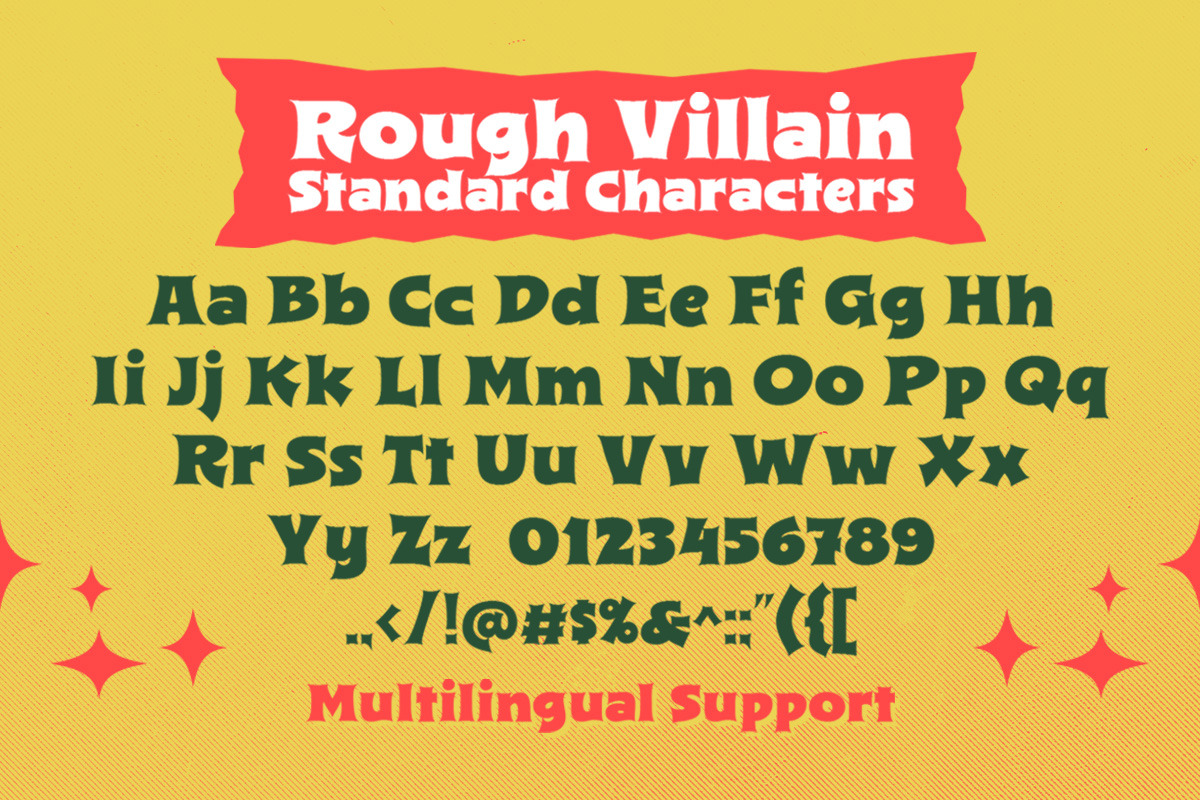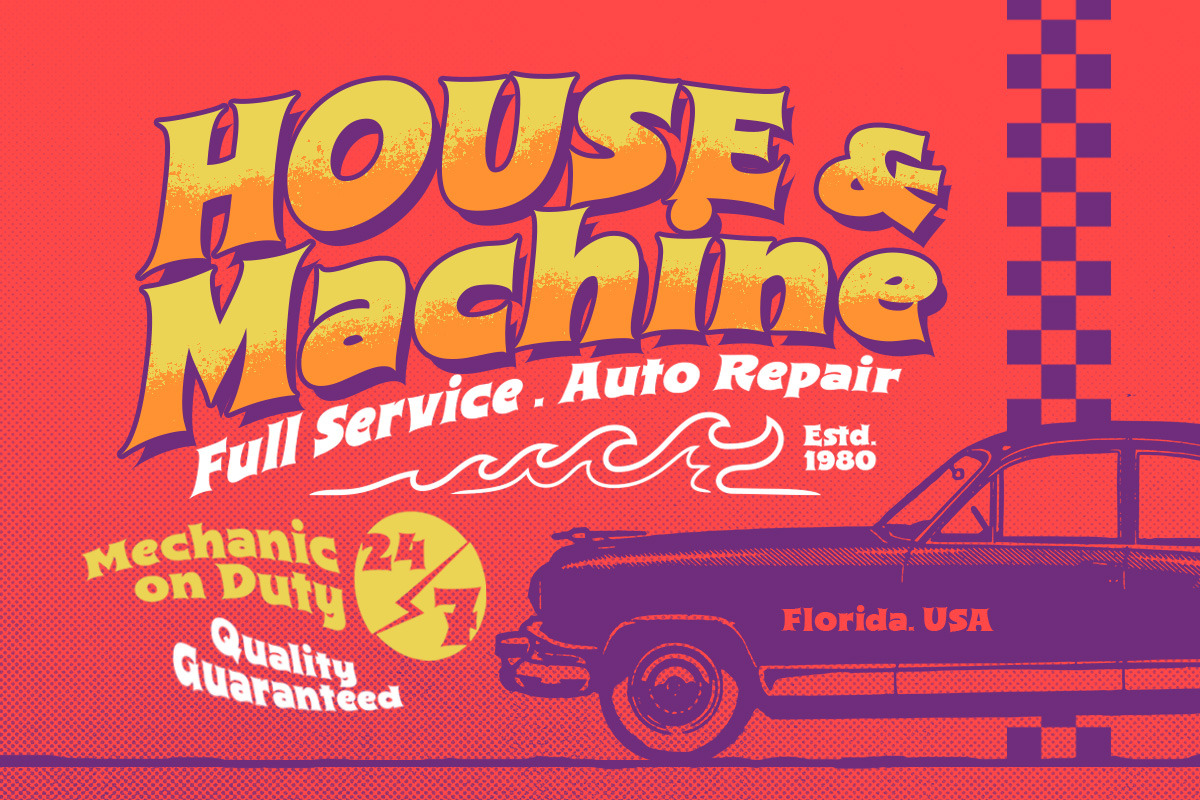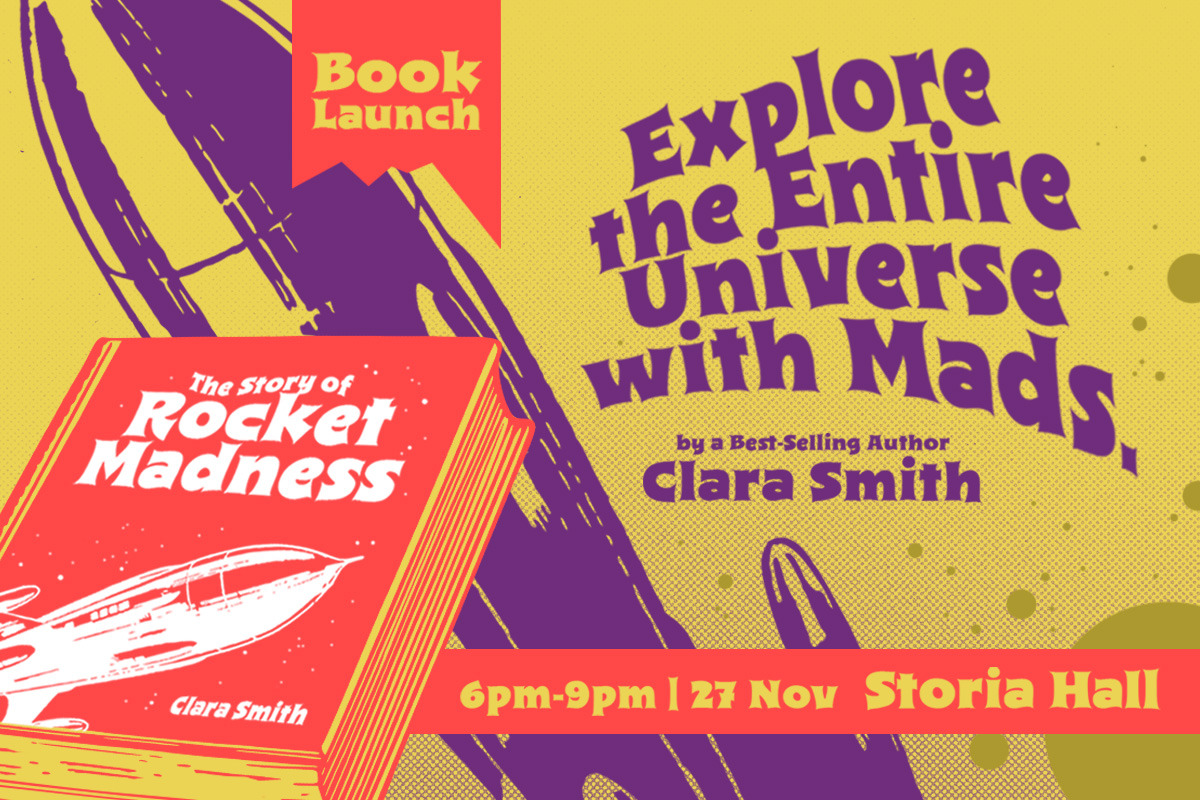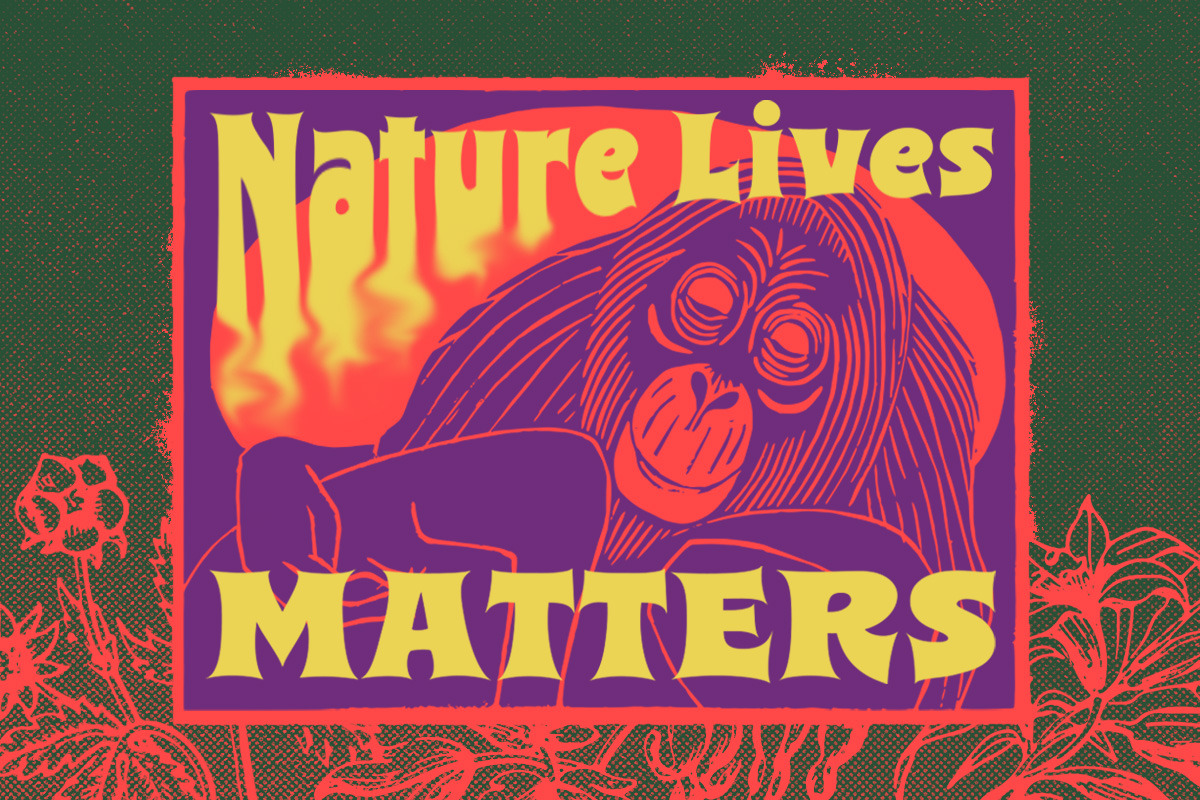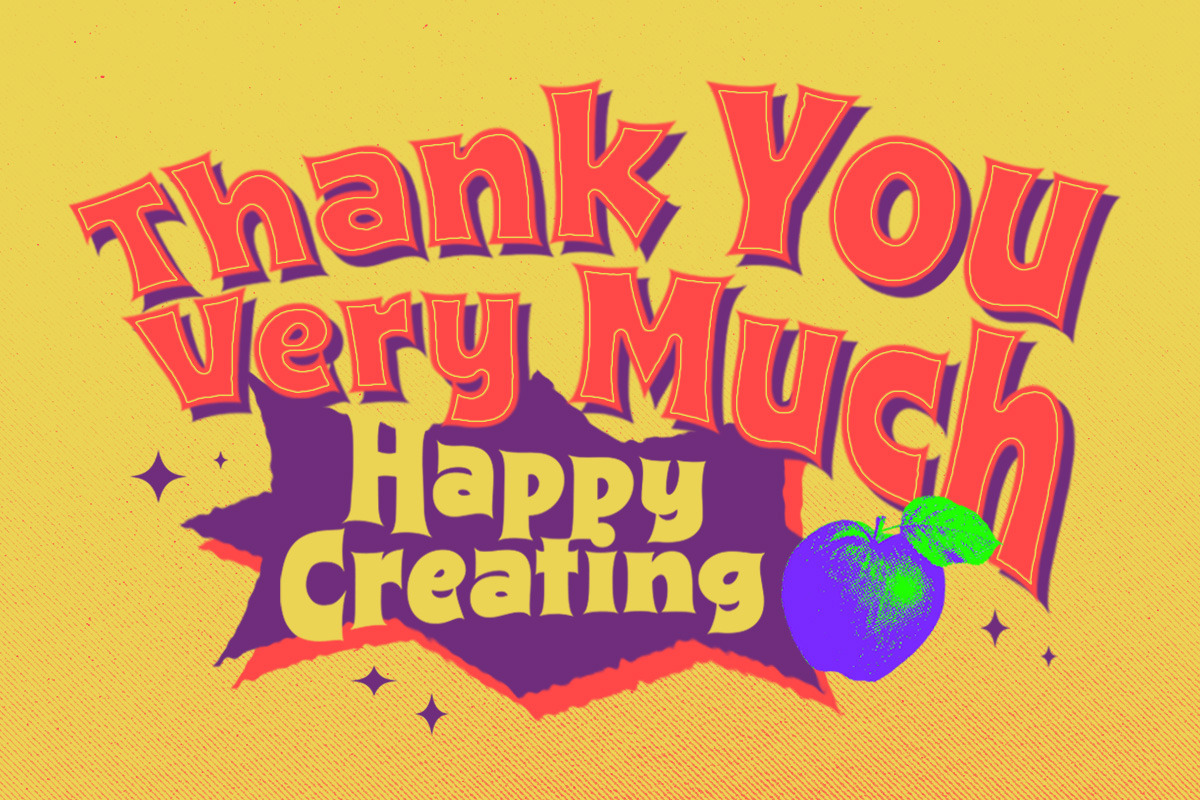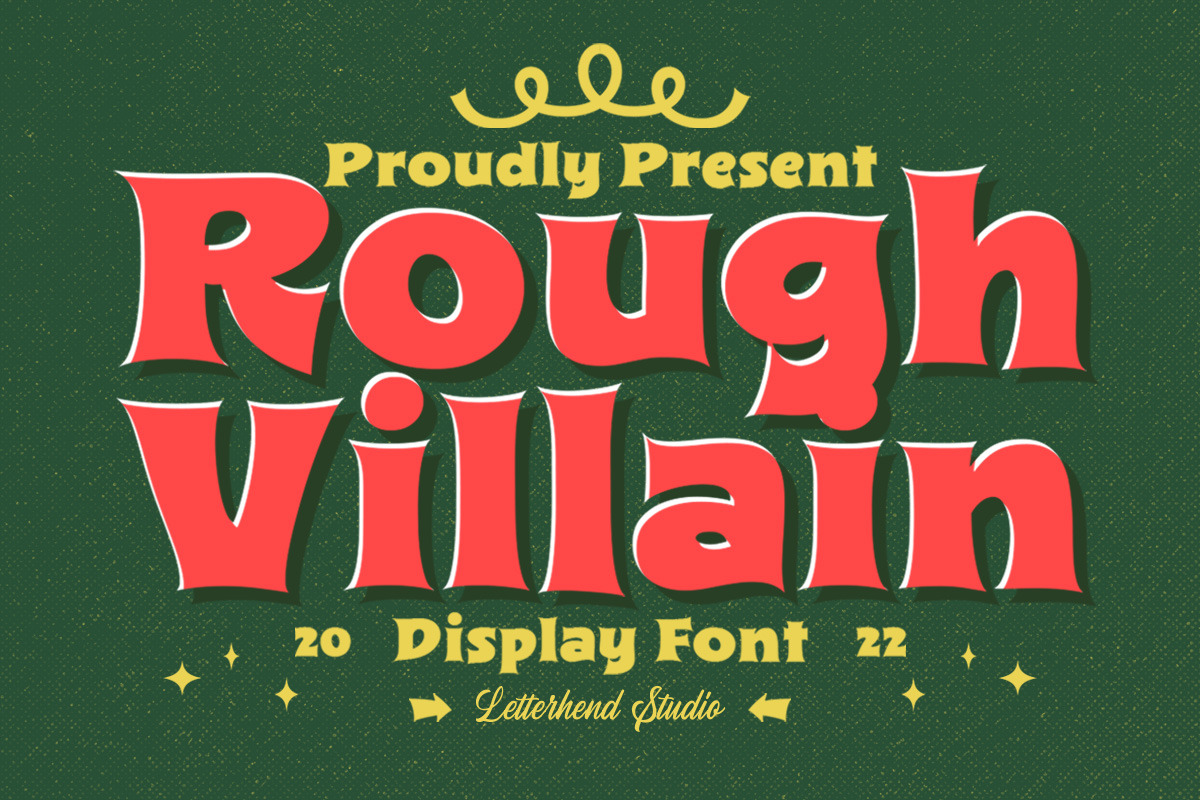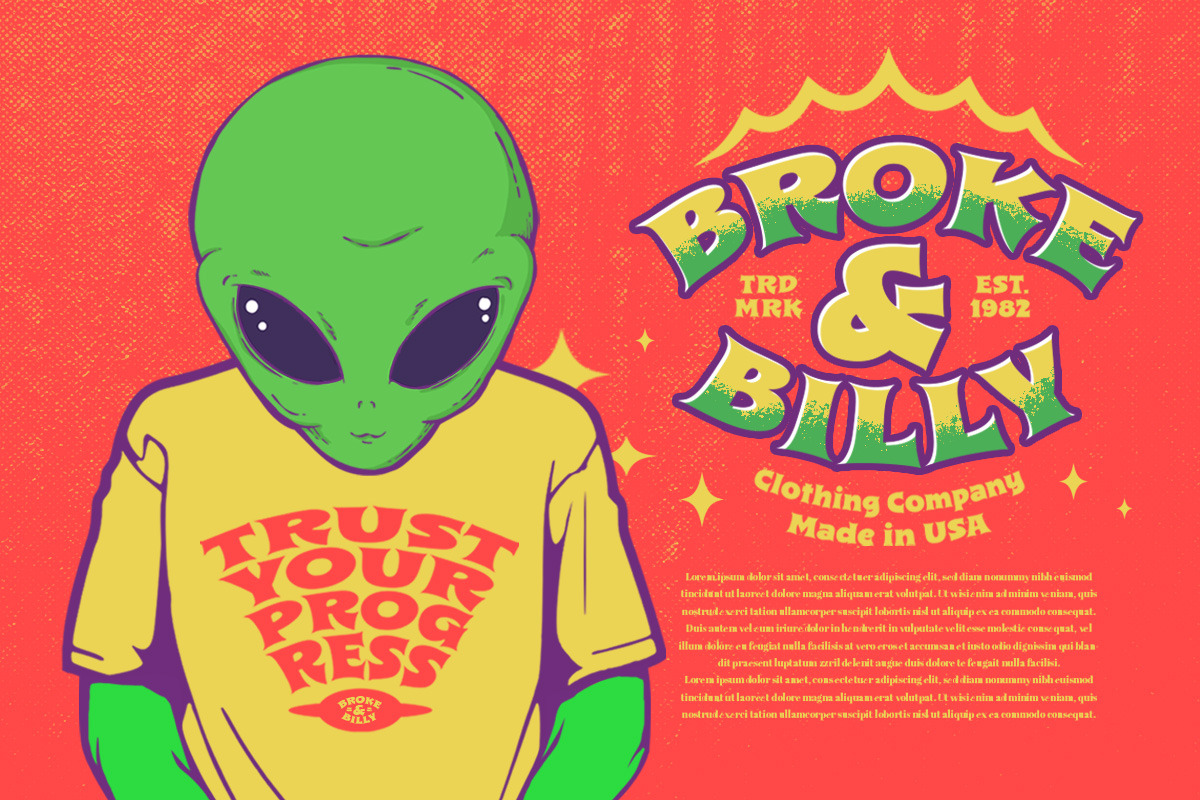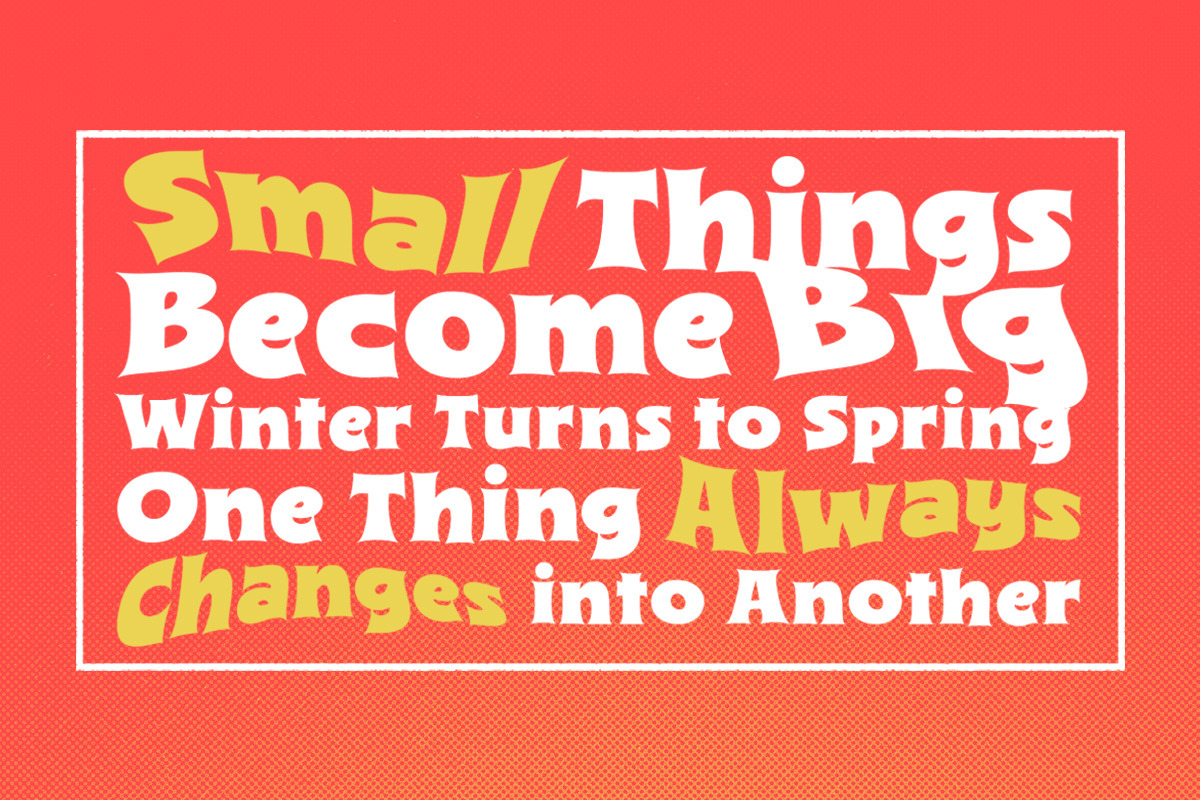
Rough Villain - Display Font
Rough Villain is a bold typeface with fun and playful looks. This type of font perfectly made to be applied especially in storybook children or child theme which is need a standout font, and the other various formal forms such as invitations, labels, logos, magazines, books, greeting / wedding cards, packaging, fashion, make up, stationery, novels, labels or any type of advertising purpose.
- uppercase lowercase